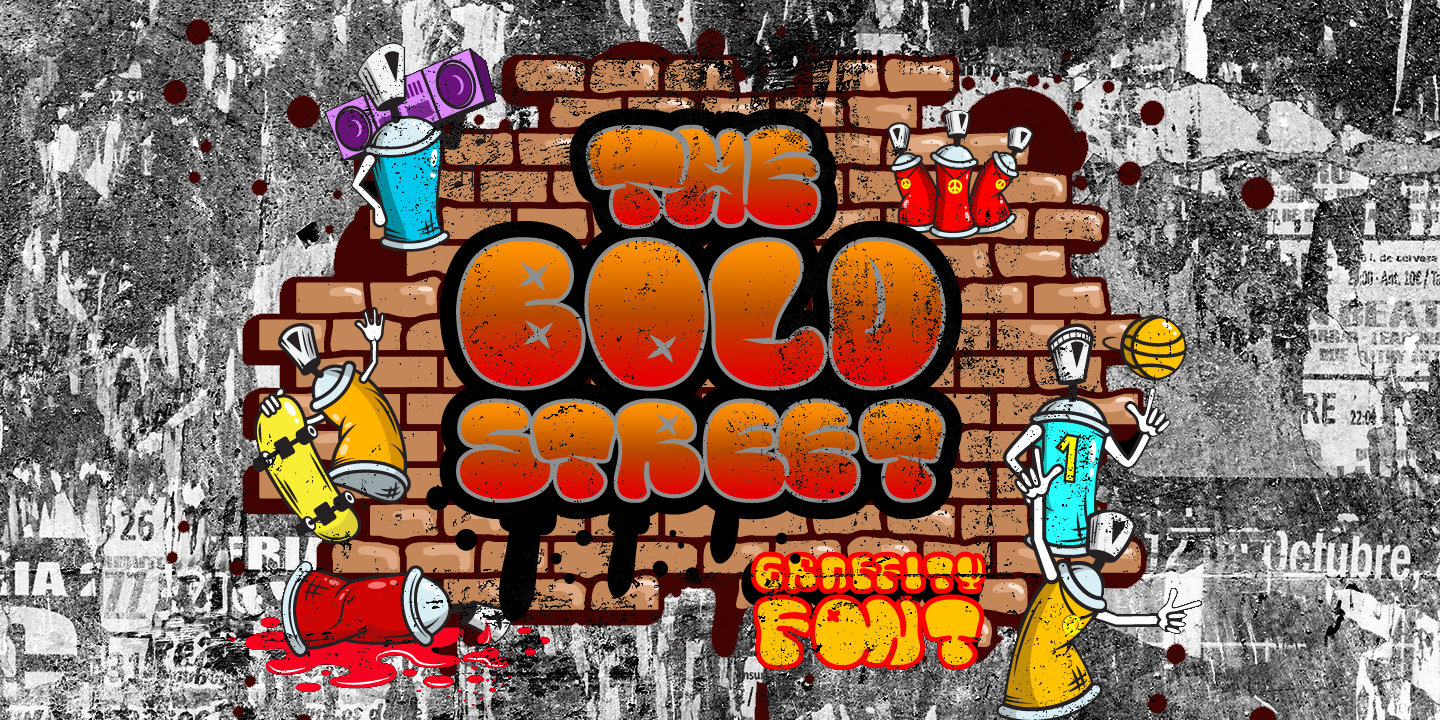
The Bold Street Font is a commanding and intensely powerful typeface, perfectly suited for projects that demand a strong, urban edge, and an unmistakable street-style aesthetic. Imagine it dominating the headlines of a cutting-edge streetwear brand's campaign, adding a gritty yet polished flair to music album covers, or making an unmissable statement on posters for urban cultural events and festivals. It's also an excellent choice for crafting striking logos that convey strength and attitude, designing impactful social media graphics for contemporary brands, or bringing a dynamic, energetic vibe to video game titles and digital advertisements. If you're looking to convey strength, authenticity, and an undeniable sense of raw urban power, The Bold Street Font is an outstanding selection.
What makes The Bold Street Font so exciting? It’s its unparalleled ability to combine a robust, solid construction with distinctive, often angular or textured forms, creating an immediate visual impact that resonates with city life. This font is designed to command attention, with its powerful strokes and assertive presence making it ideal for display purposes where maximum visibility and a strong identity are paramount. Despite its bold and often raw visual weight, The Bold Street Font is crafted to maintain excellent readability, ensuring that your message is delivered with both clarity and significant force. Designers will appreciate its versatility in creating designs that are both visually aggressive and deeply memorable, making it a go-to choice for projects that need to embody the pulse and spirit of the modern metropolis.
The The Bold Street Font family is typically designed to maximize its formidable and distinctive aesthetic. While it might primarily feature a singular, intensely bold weight that perfectly embodies its unique style, you could find variations that enhance its utility, such as slightly condensed versions for powerful headlines in limited spaces, or stylistic alternatives that offer more creative typographic possibilities to deepen its urban appeal. These variations ensure that The Bold Street Font maintains its cohesive and high-impact visual identity across different design applications, from monumental titles to supporting text that still carries significant weight. Discover the formidable power of The Bold Street Font Free Download and infuse your designs with an unforgettable sense of metropolitan strength.